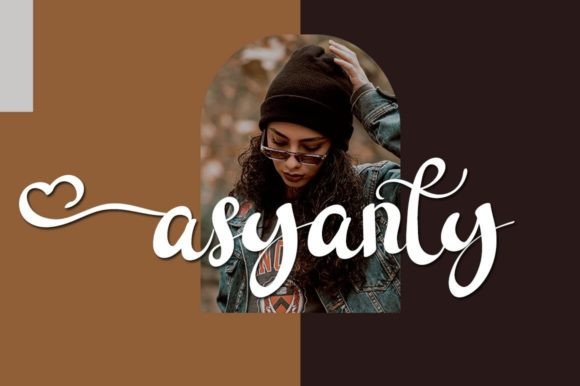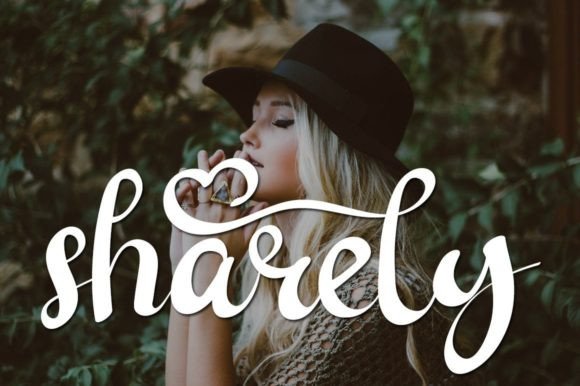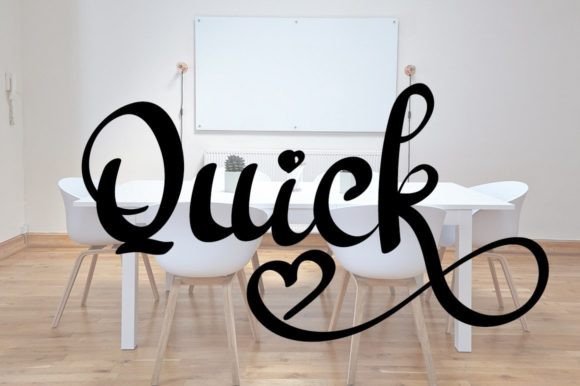
Introduction to Sharelock Font
Have you ever stared at a blank page, waiting for the perfect font to bring your creative project to life? That’s exactly what happened to me when I discovered the Sharelock Font. Its fresh, clean, and elegant design immediately caught my eye, and I knew I had to share it with the world.
As a designer, you understand the importance of having high-quality design resources at your fingertips. The Sharelock Font is one of those gems that can elevate your designs and leave a lasting impression on your audience. With its transparent background and versatile style, it’s perfect for both formal and informal projects. Whether you’re working on a branding campaign or a social media graphic, this font is sure to add a joyful touch to your design.
Not only is the Sharelock Font a great design resource, but it’s also available for free download, making it an accessible addition to any designer’s toolkit. In this article, we’ll dive deeper into the features and benefits of the Sharelock Font, and explore how you can use it to take your designs to the next level.
Key Features of Sharelock Font
- High-quality design resource for creative projects: Sharelock Font offers a professional and sleek aesthetic, making it perfect for logos, branding, and other visual identities.
- Transparent background: The font’s transparent background allows for seamless integration with any design, giving you complete control over the look and feel of your project.
- Unique characteristics: Sharelock Font features a distinctive blend of modern and vintage elements, making it a standout choice for designers looking to add some personality to their work.
Honest Review: Sharelock Font
I recently had the opportunity to work with the Sharelock Font, and I must say, it’s been a game-changer for my creative projects. As a designer, I’m always on the lookout for high-quality design resources that can elevate my work and save me time. The Sharelock Font definitely delivers.
- ✨ Versatility: The Sharelock Font is incredibly versatile and can be used for a wide range of creative projects, from digital design to print materials.
- ✨ High-quality design: The font is beautifully crafted, with clean lines and a transparent background that makes it easy to use and customize.
However, I did encounter a few limitations while working with the Sharelock Font. ⚠️ One of the main issues I faced was the limited character set, which made it difficult to use for complex text-based designs.
Overall, I’m impressed with the Sharelock Font and would definitely recommend it to fellow designers. While it may have some limitations, its versatility, high-quality design, and free availability make it a valuable addition to any design toolbox.
Tips for Getting the Most Out of Sharelock Font
Sharelock Font is a free download, but its high quality and versatility make it a valuable design resource. To get the most out of it, try experimenting with different font sizes, colors, and layering techniques to create unique and eye-catching designs.
Sharelock Font is perfect for creative projects such as logos, business cards, and brochures. Its transparent background makes it easy to layer and customize, and its high quality ensures that your designs will look professional and polished.
Does the Sharelock Font have a transparent background?
Yes, the Sharelock Font is designed with a transparent background, making it easy to use in graphics and design projects where a transparent font is required. This feature allows you to layer the font over other design elements without the background of the font interfering with the overall design.